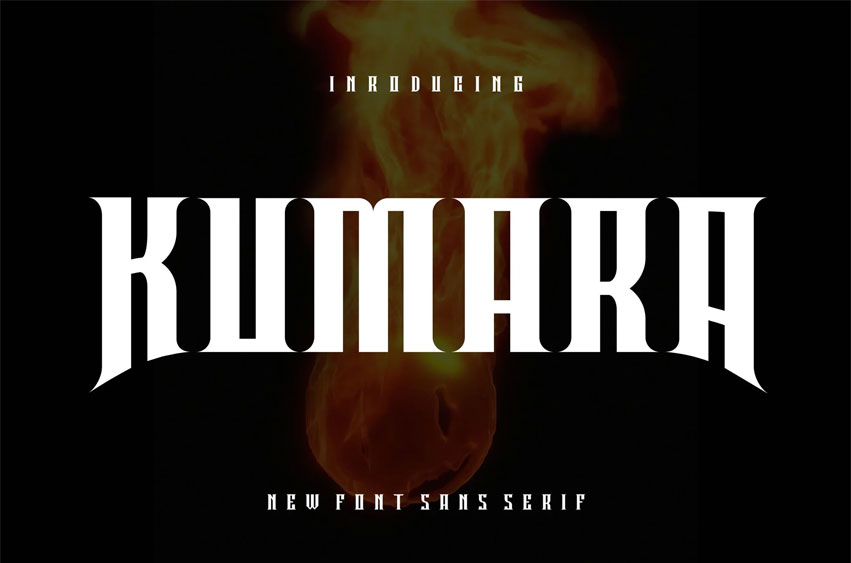
Kumara Font
Kumara Font Bold Display Font & Font Logo, and authentic display. It will certainly amaze your readers. It is perfect for your upcoming projects.